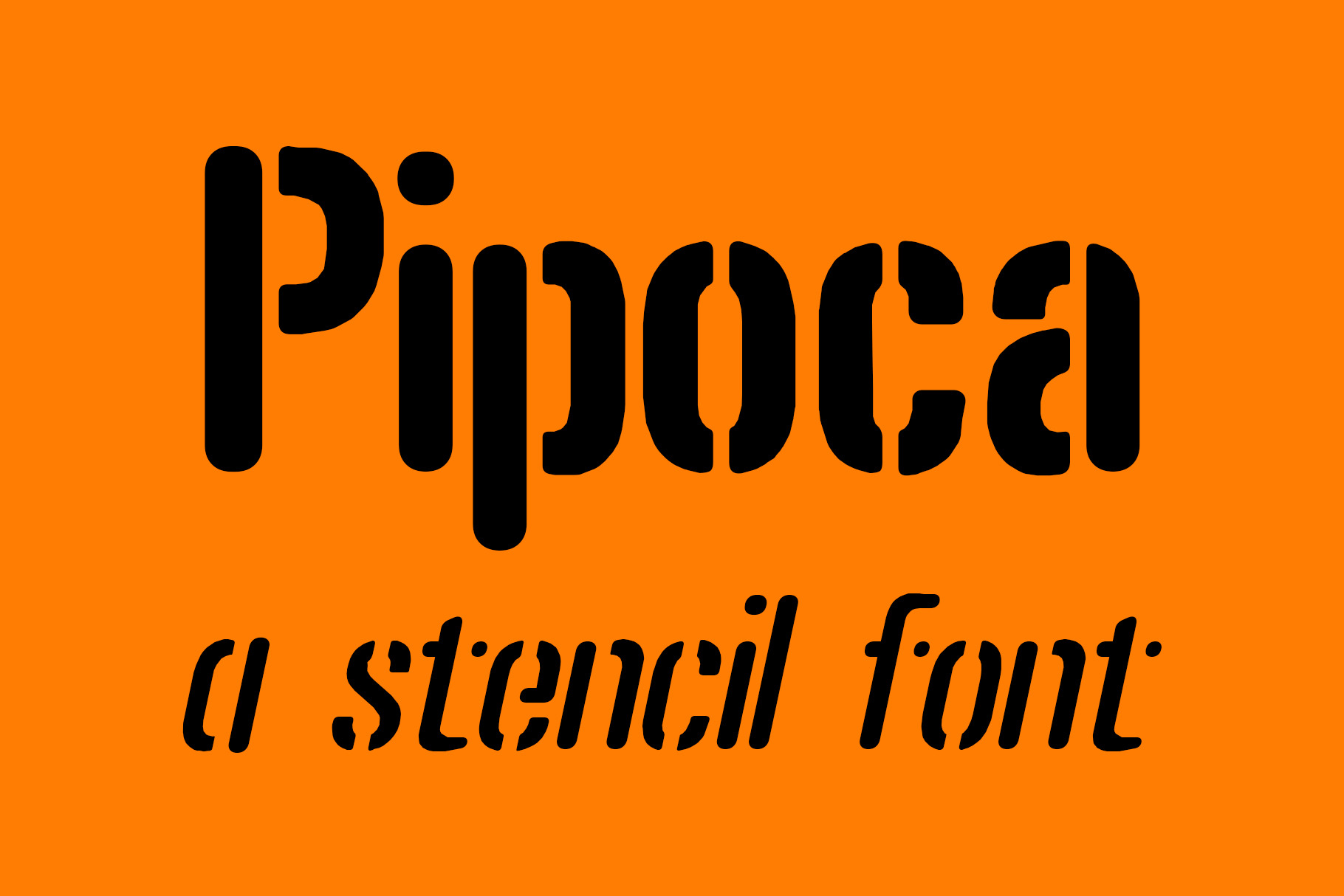
Pipoca - a stencil font
Pipoca is a stencil display font. Soft and delicate it makes a statement when used. Pipoca means popcorn in Portuguese. It has a subtle roughness that shows better at large point sizes.
- Pipoca Regular
- Pipoca Italic
- Pipoca Bold